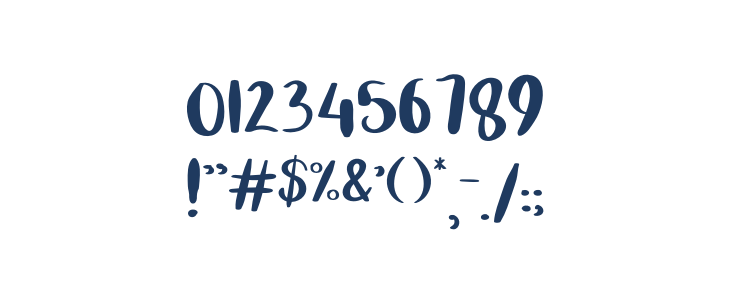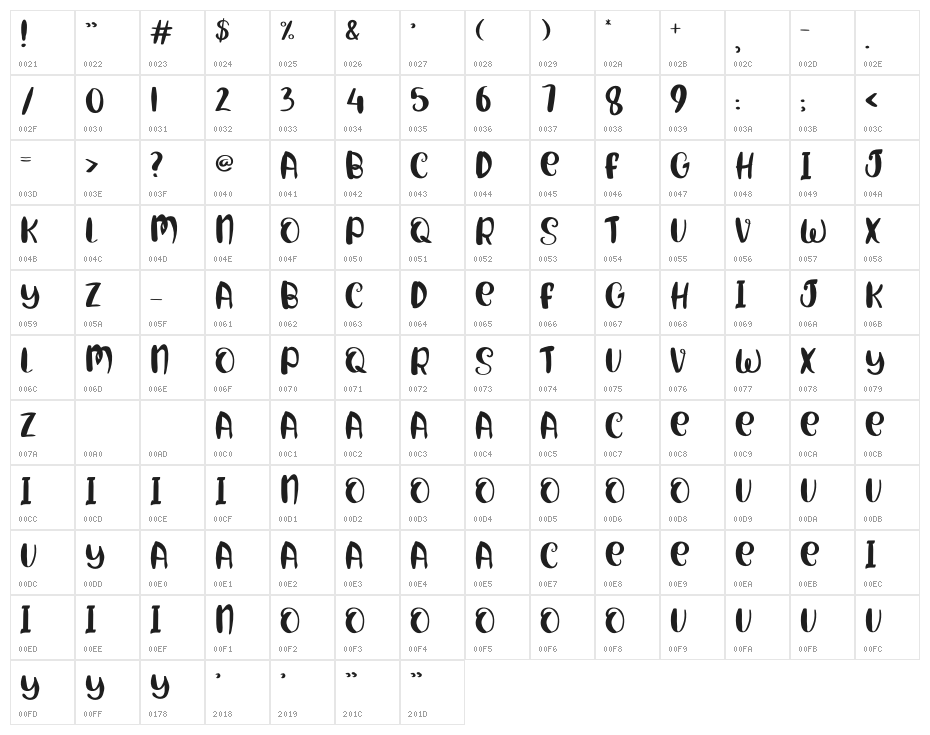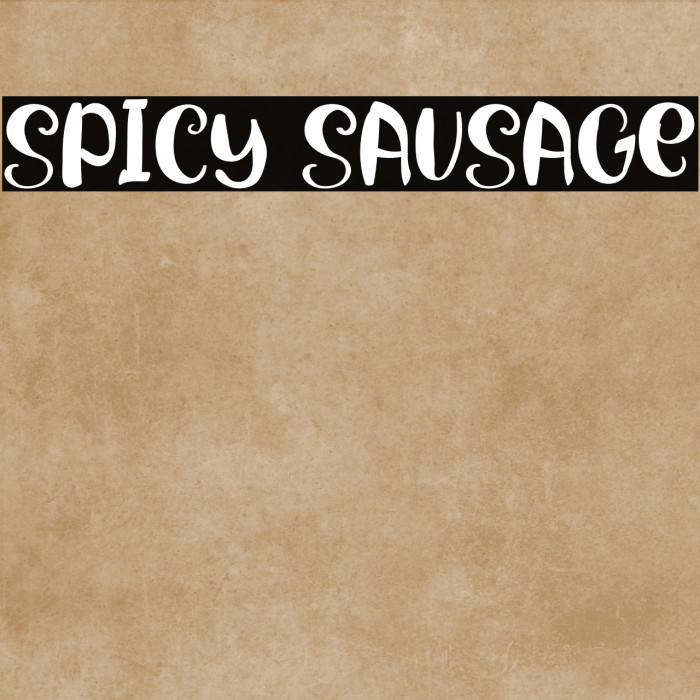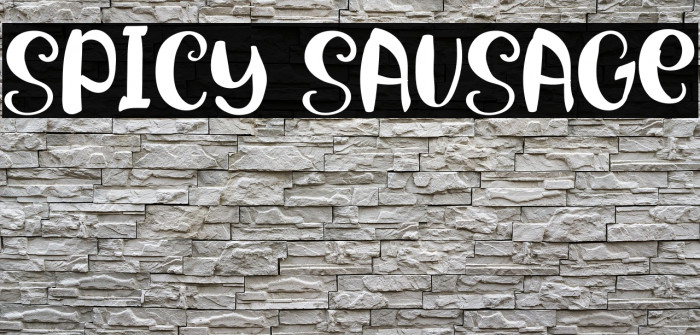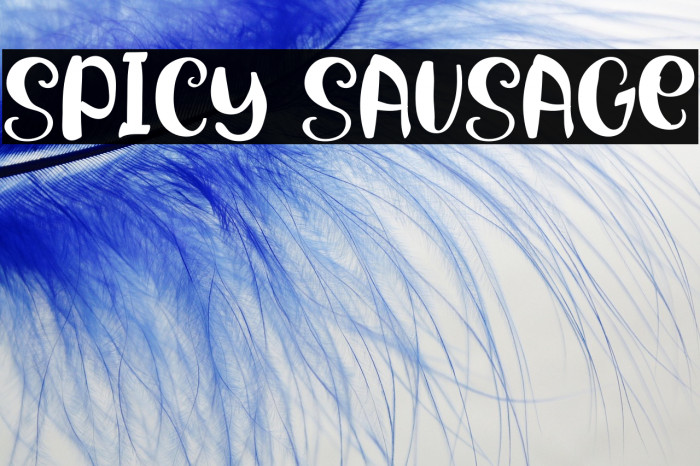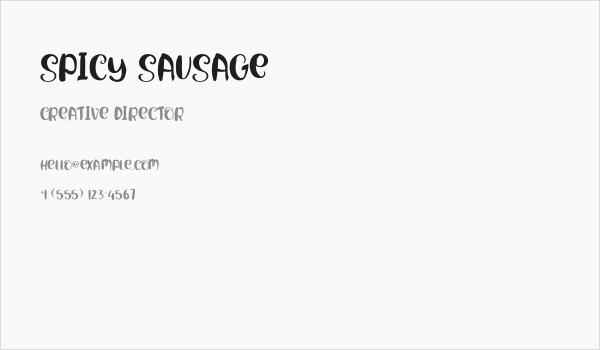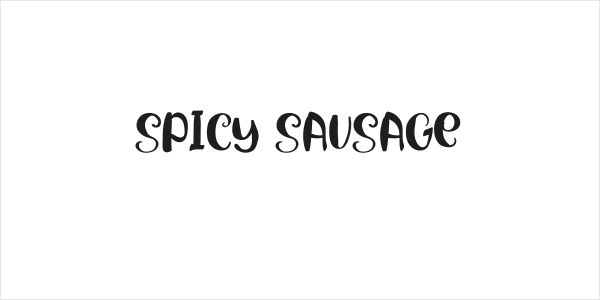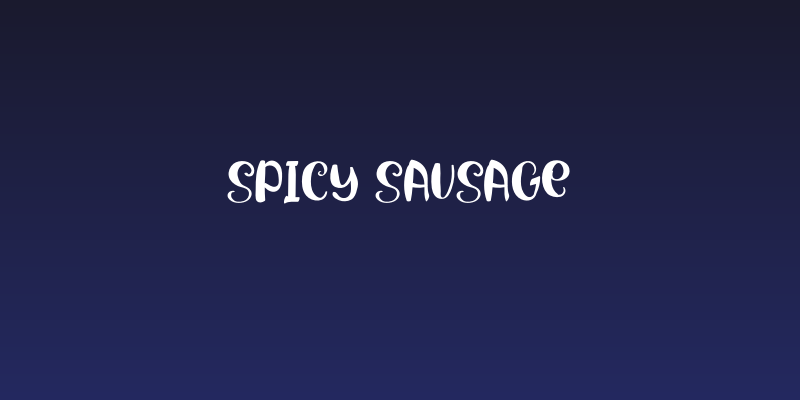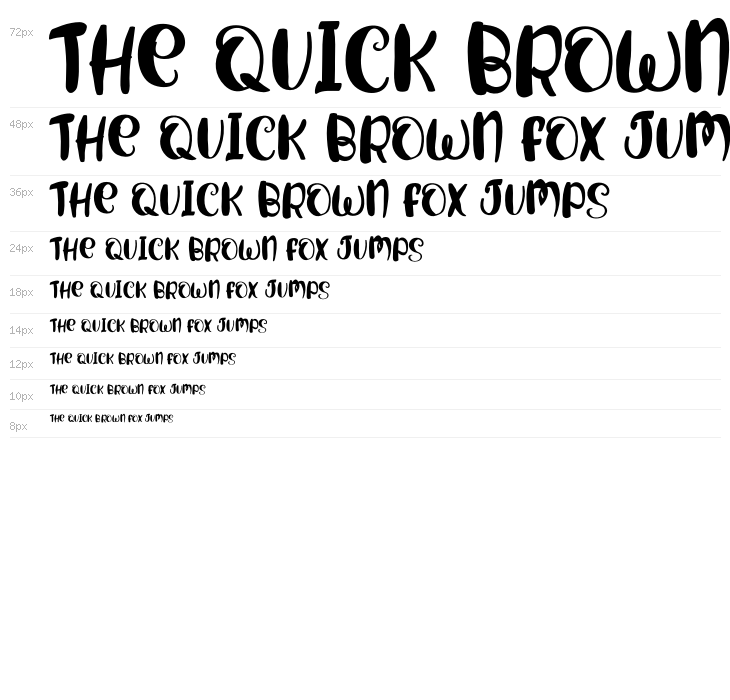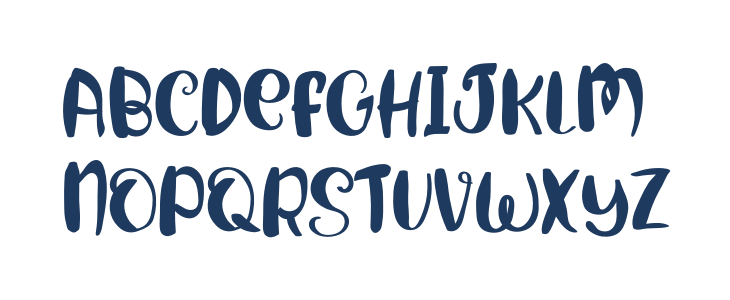
Spicy Sausage Font
Spicy Sausage Description
This font features a playful and bold script style with a hand-drawn appearance. The characters are rounded and slightly irregular, giving it a whimsical and friendly look. The uppercase and lowercase letters maintain a consistent flow, with some letters having unique flourishes that add to its charm. The numbers and special characters are equally stylized, ensuring a cohesive design throughout. This font is perfect for projects that require a touch of personality and creativity.
| Proposed Projects | Ideal for greeting cards, playful branding, children's books, and creative posters. |